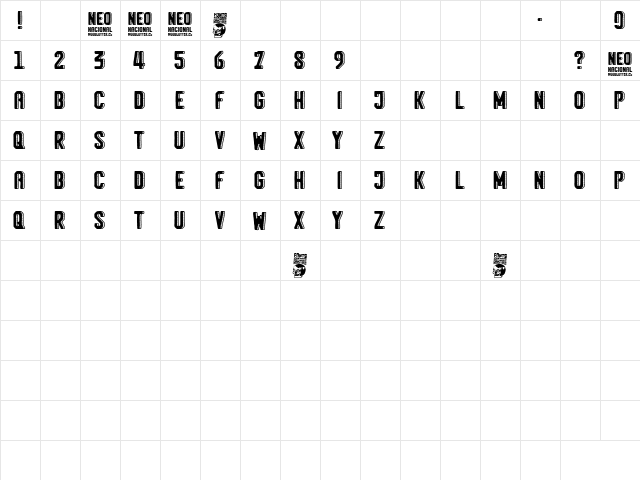
Neo Nacional Regular
| Designer | Woodcutter Manero |
Design Context for Neo Nacional Typeface
Neo Nacional takes a measured approach to typography — its balanced proportions and neutral character make it a reliable workhorse for both digital and print work.